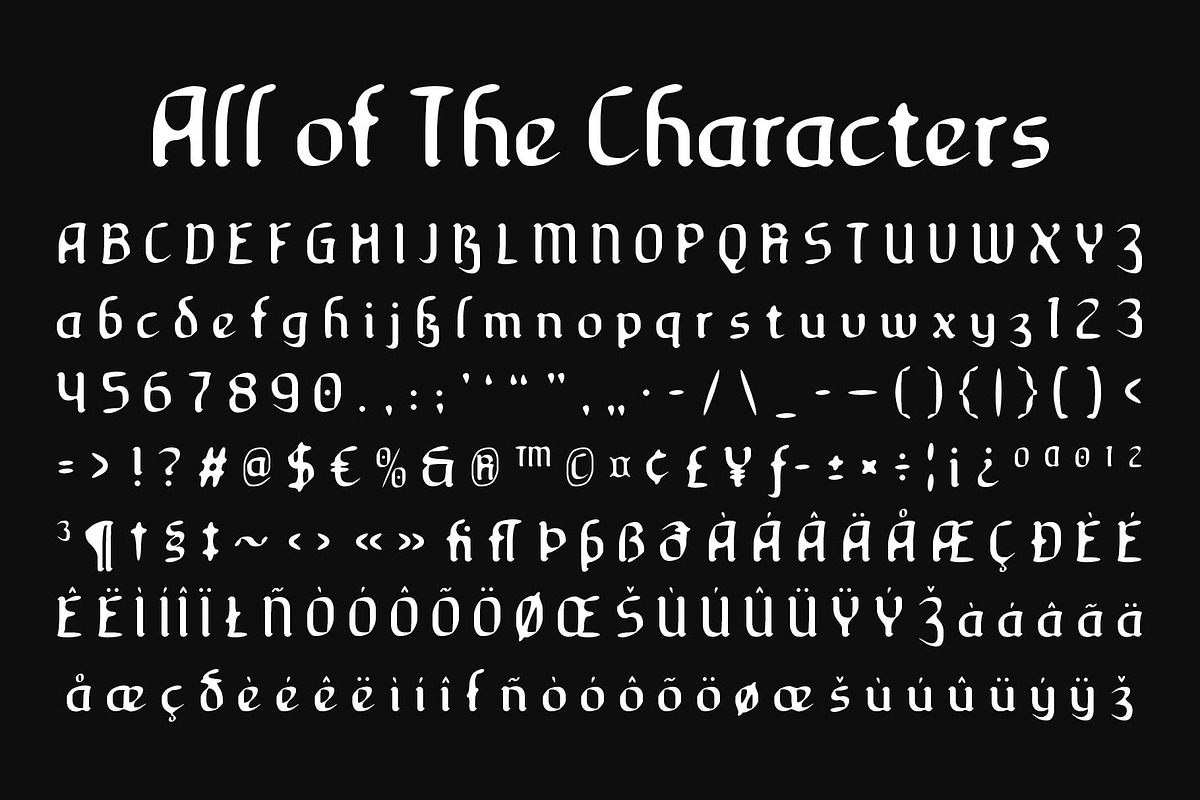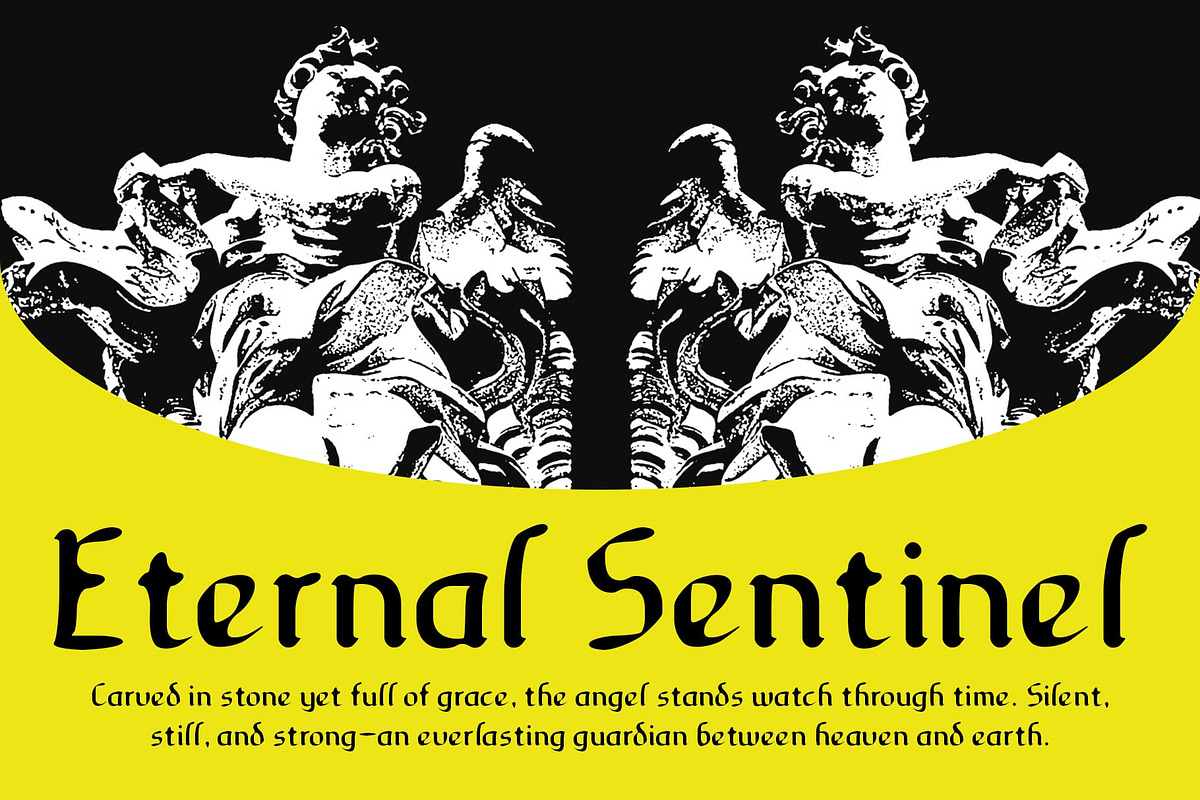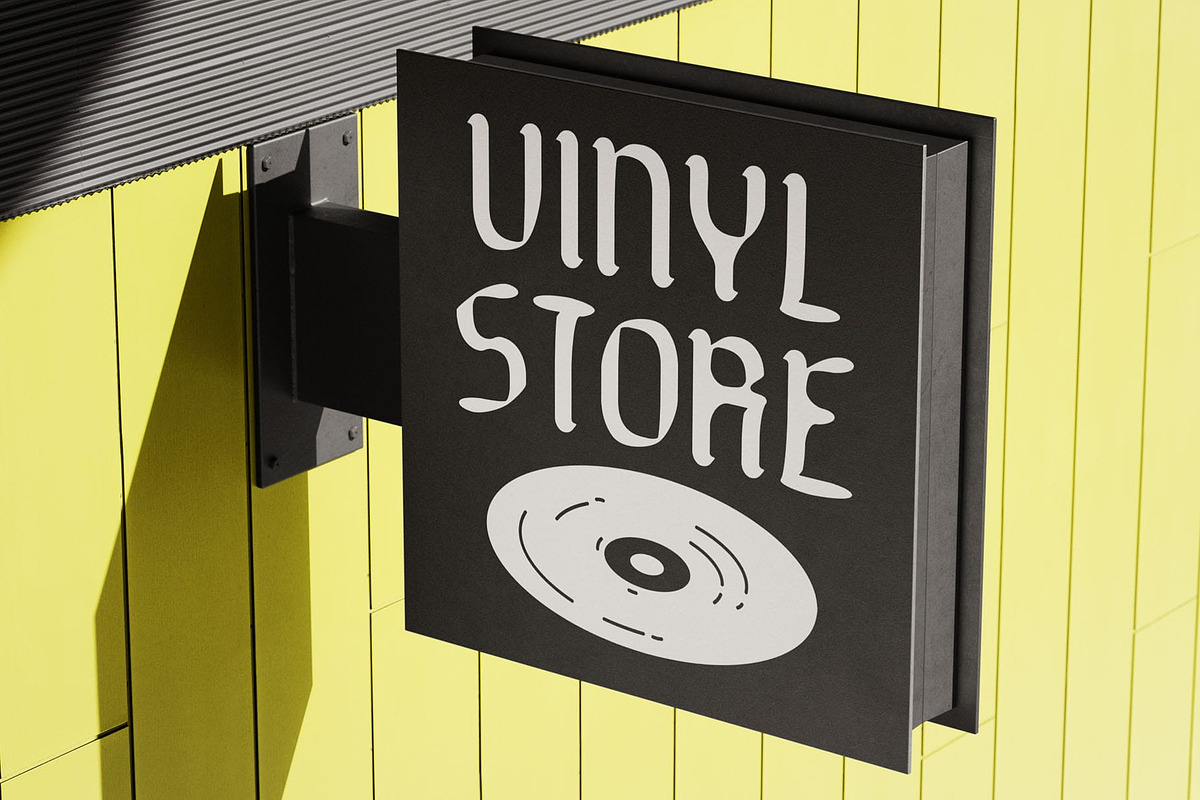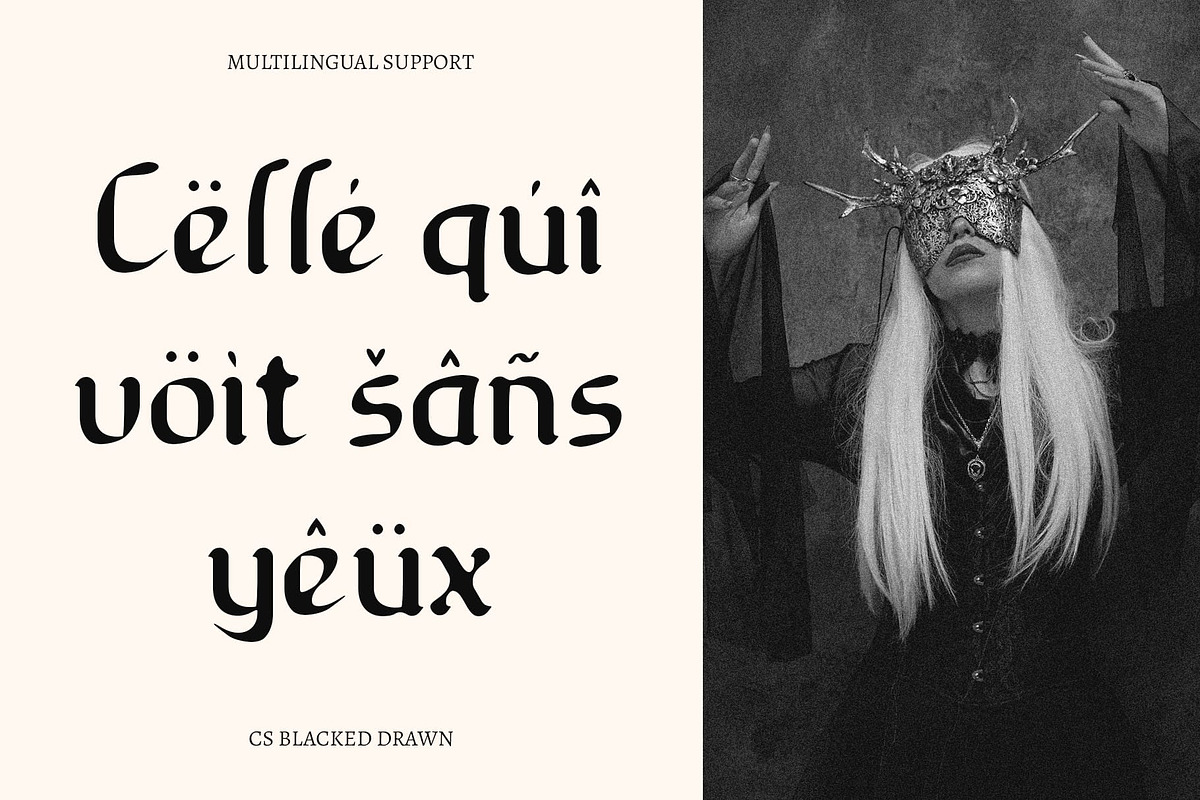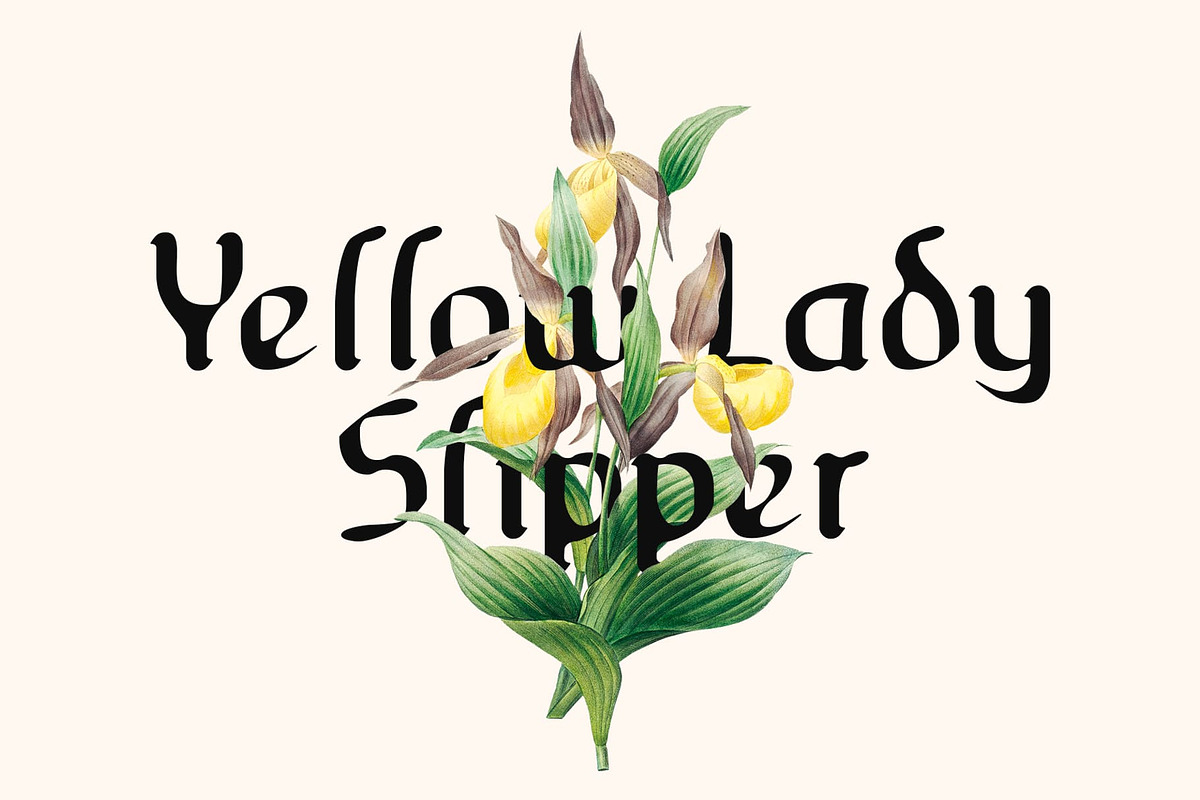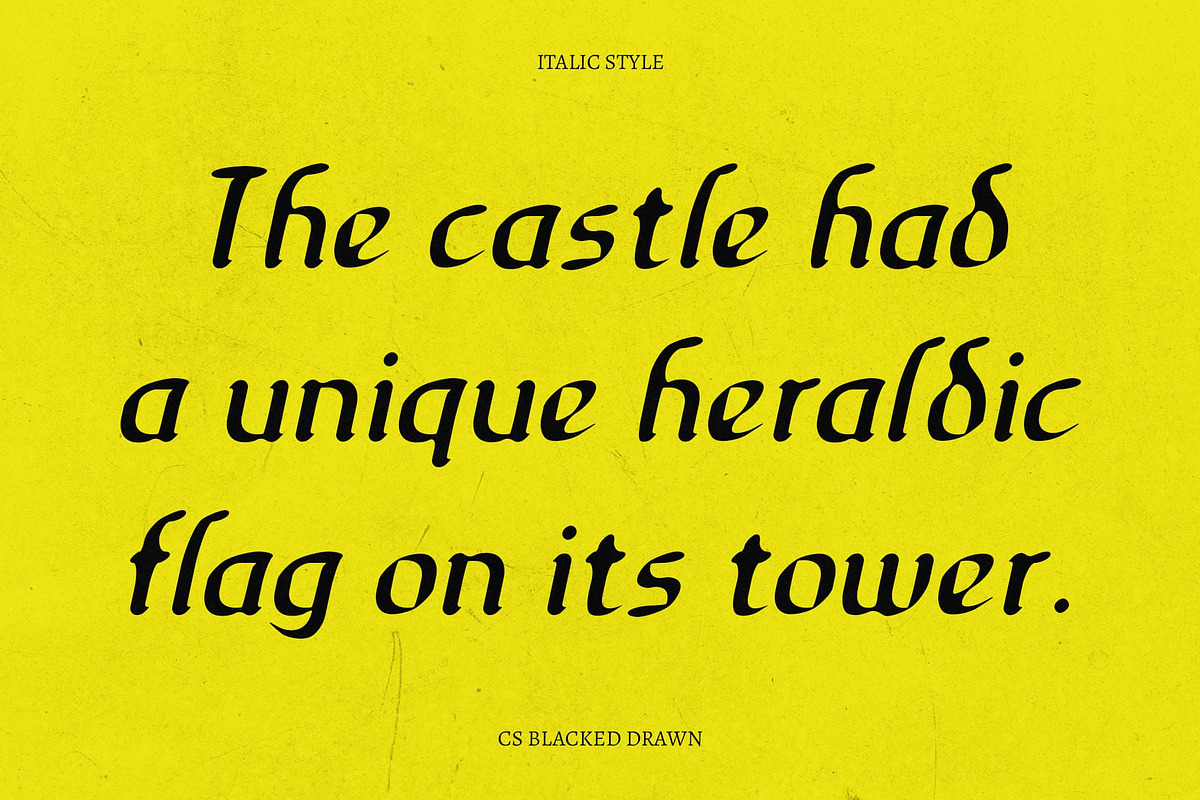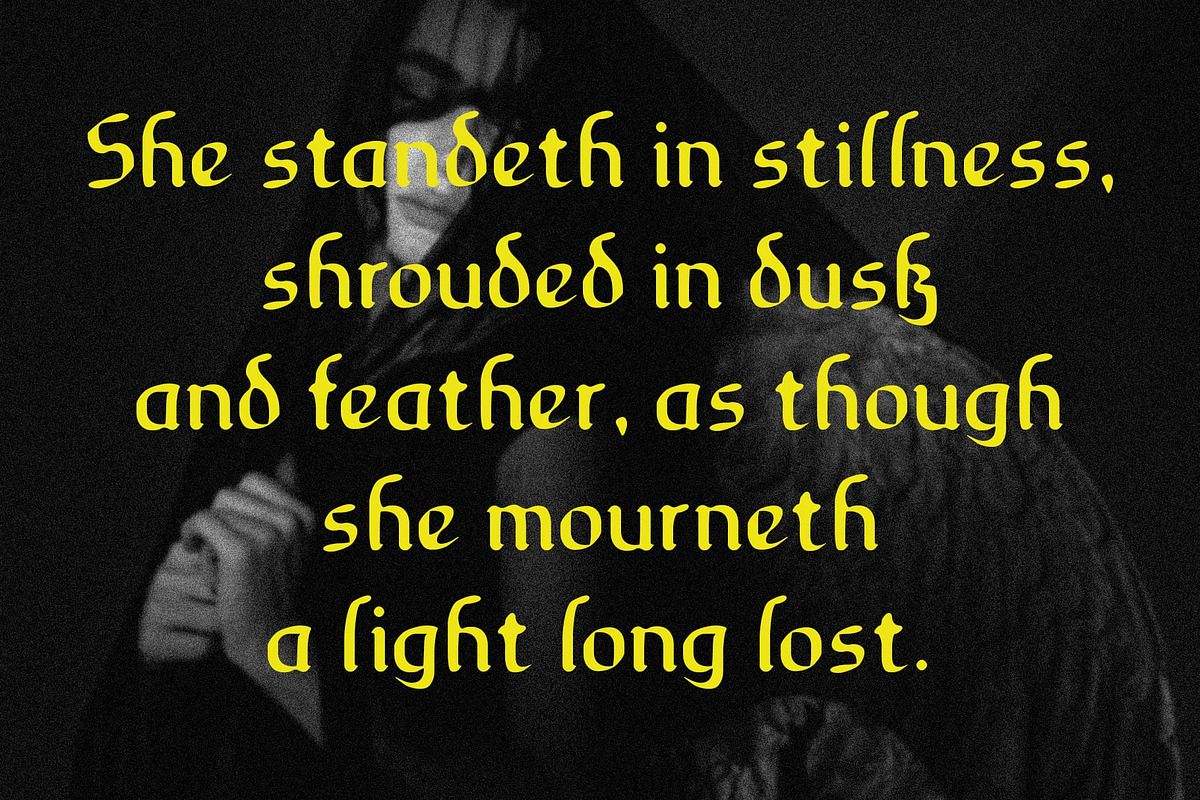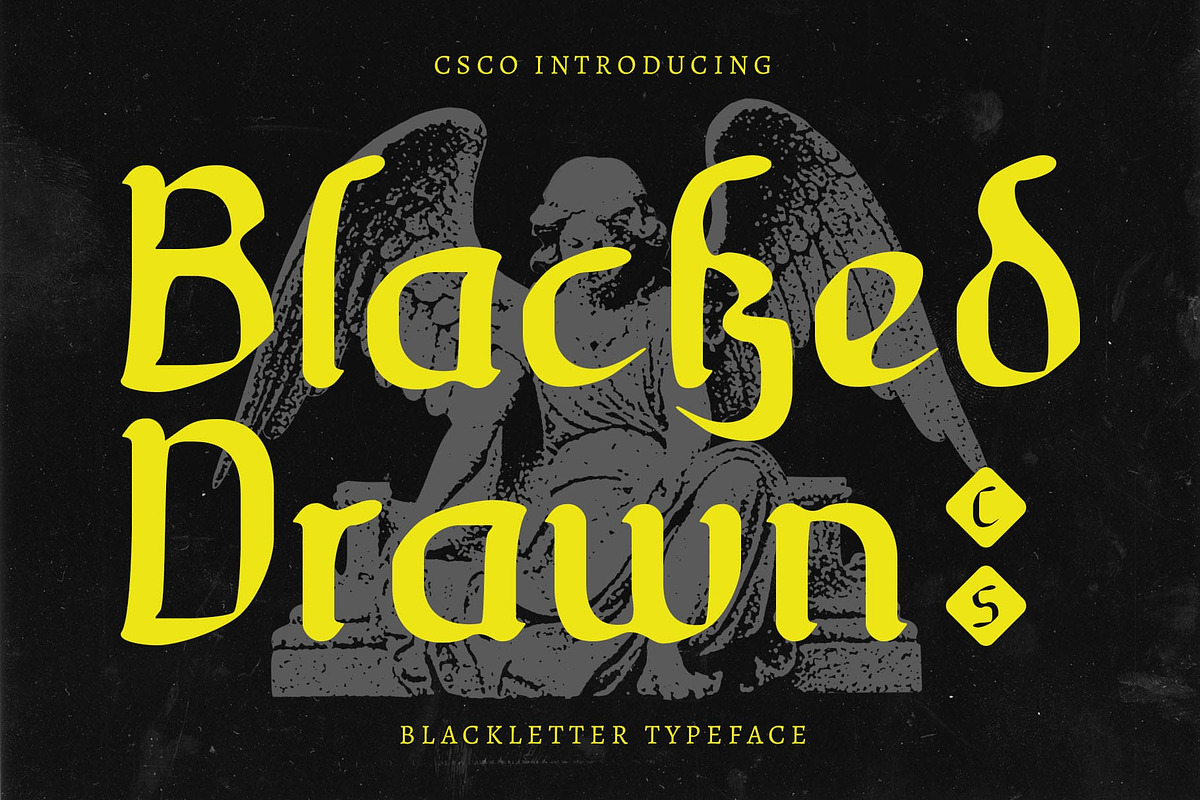
CS Blacked Drawn
CS Blacked Drawn – A Gritty Modern Blackletter with Artistic Edge
Bold Blackletter Reinvented for the Modern Age CS Blacked Drawn is a powerful display font that fuses the rich heritage of blackletter typography with a fresh, modern twist. It features bold, sharp letterforms inspired by Gothic calligraphy, reimagined with simplified contours and strong visual contrast.
Rough Drawn Texture for Raw Artistic Personality What sets this dramatic font apart is its expressive drawn effect—a handcrafted texture that gives each letter an imperfect, organic finish. This artistic layer brings warmth, grit, and authenticity, softening the otherwise strict geometry of traditional blackletter. The drawn effect also enhances the font’s personality, making it feel more tactile, human, and alive.
A Typeface That Commands Attention This gothic modern font is unapologetically bold. Its dramatic presence, paired with handcrafted imperfection, creates a striking contrast that’s perfect for grabbing attention. Whether featured in oversized headlines, layered into complex layouts, or paired with minimalist elements, it adds intensity and originality to any visual concept.
Perfect for Music, Fashion, Art, and Subculture Design This font is ideal for metal music artwork, dark-themed branding, gothic editorials, underground zines, album covers, and alternative fashion campaigns. It speaks to rebellious creativity, merging traditional craft with modern flair. This edgy font is for designers who want to stand out—and aren’t afraid to make bold typographic statements.